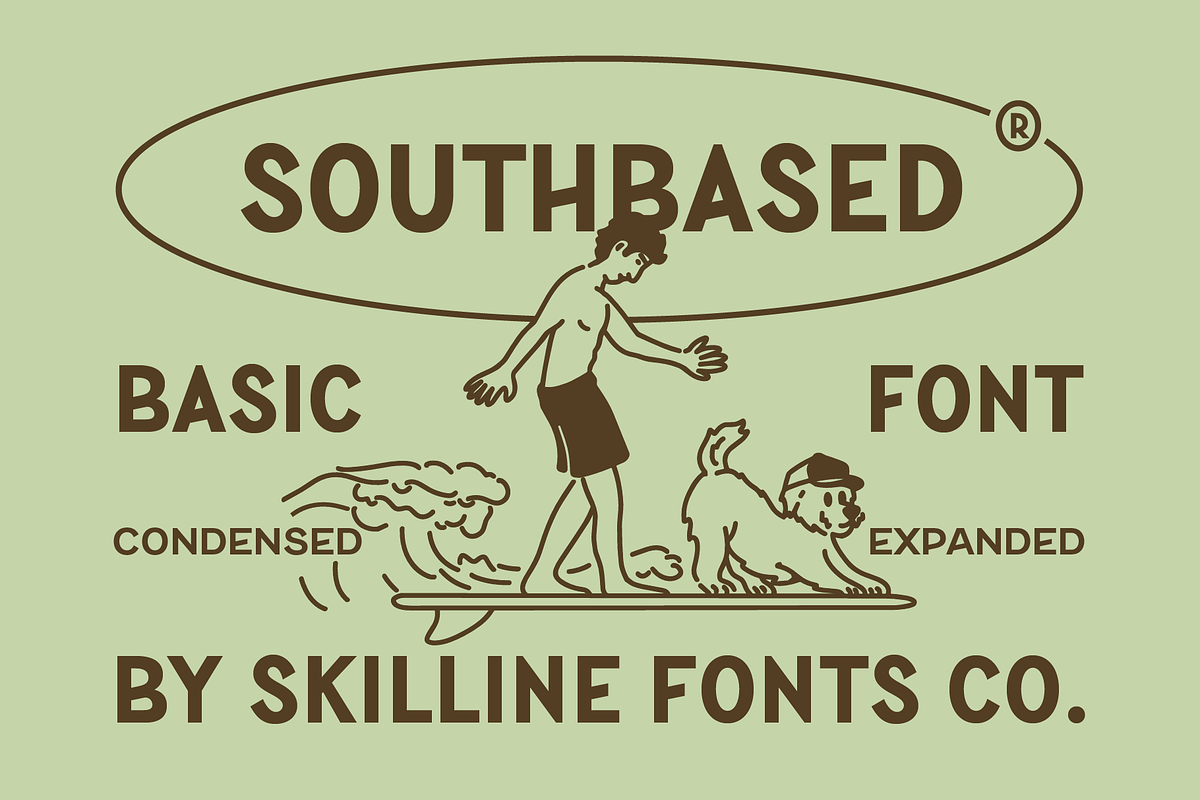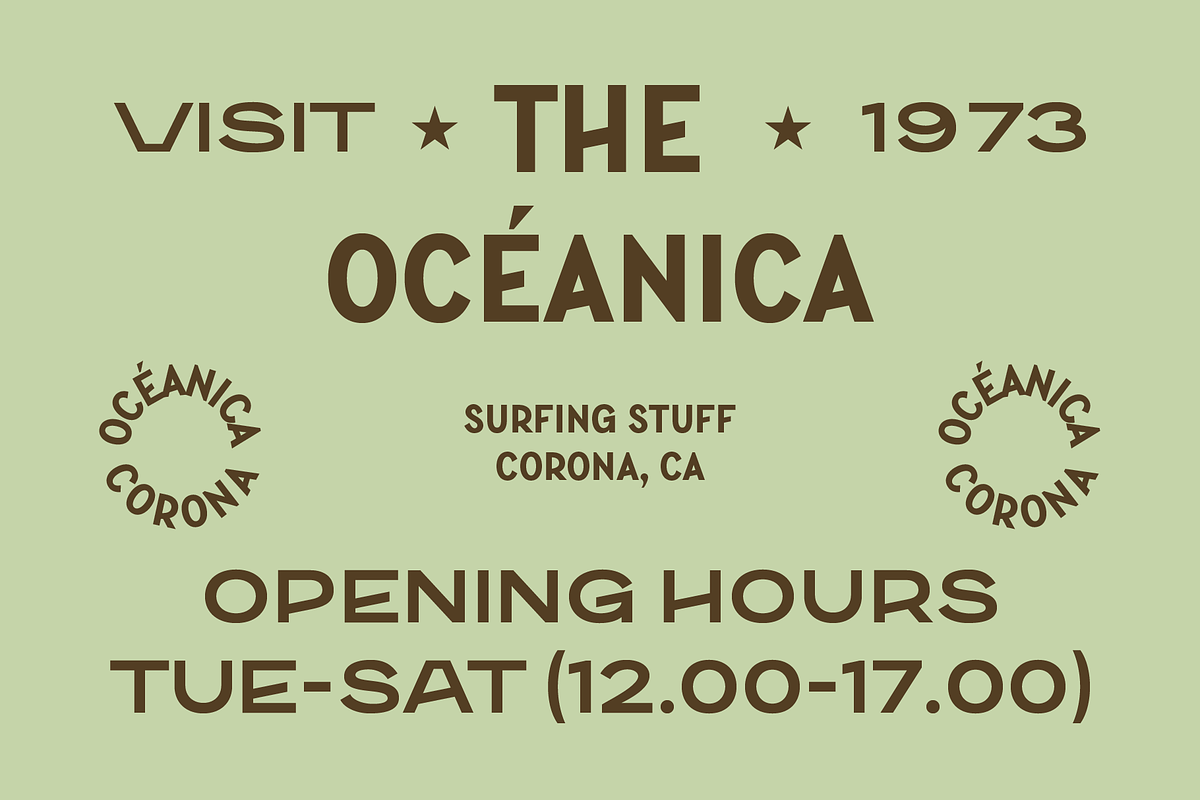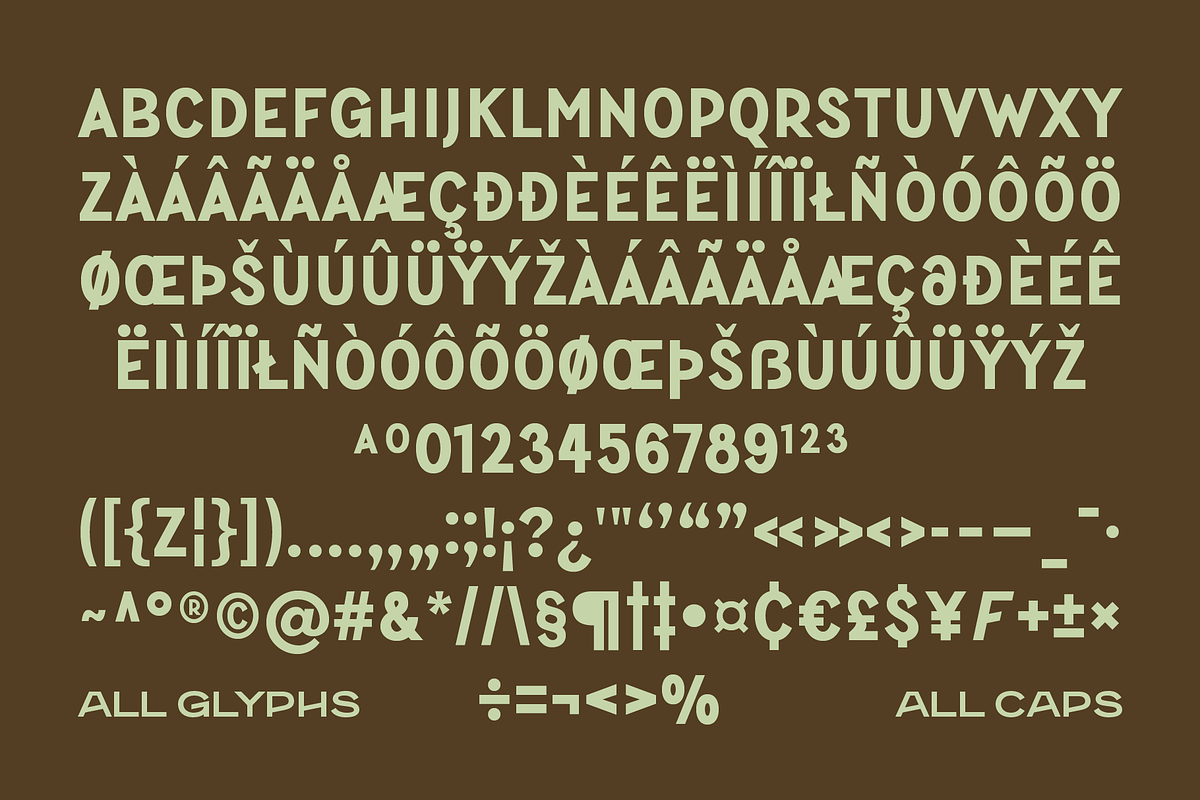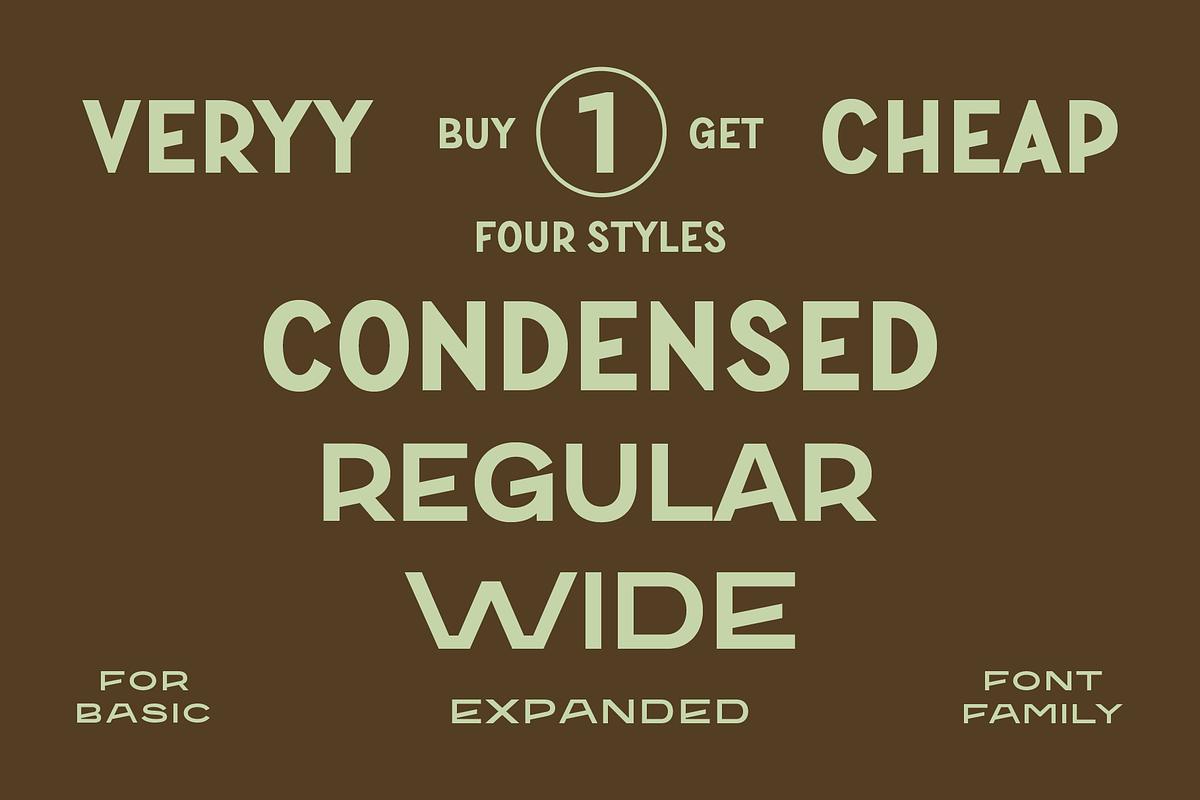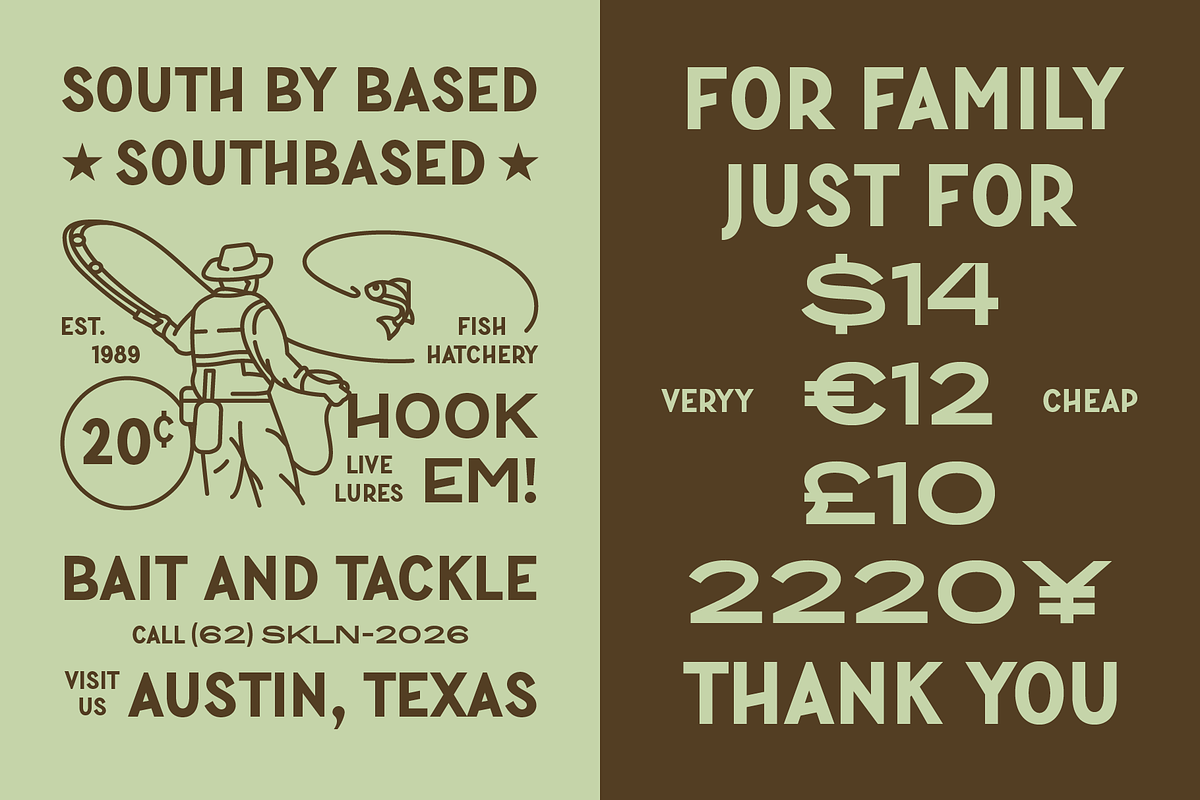
SFC Southbased
Southbased is a clean retro condensed sans serif font family inspired by vintage surf culture, classic signage lettering, and timeless editorial typography. Designed with confident geometric structure and subtle nostalgic character, it delivers a bold yet highly versatile visual presence.
Featuring multiple width styles including Condensed, Regular, Wide, and Expanded, Southbased offers flexible typographic control for modern branding needs. Its strong uppercase construction ensures excellent readability and impact, making it perfect for logos, posters, apparel graphics, packaging, signage, and contemporary retro design projects.
IDEAL APPLICATIONS
- Surf & outdoor branding
- Vintage signage design
- Apparel & merchandise graphics
- Editorial headlines
- Packaging & label typography
- Logo & badge design
- Poster & advertising layout
- Modern retro identity systems
- 4 Width Styles: Condensed, Regular, Wide, Expanded
- All Caps Typeface Construction
- Numbers & Extended Punctuation